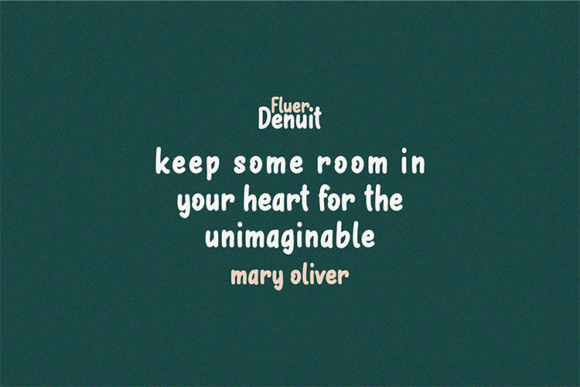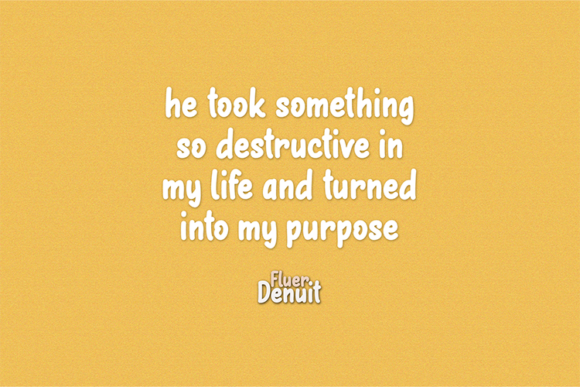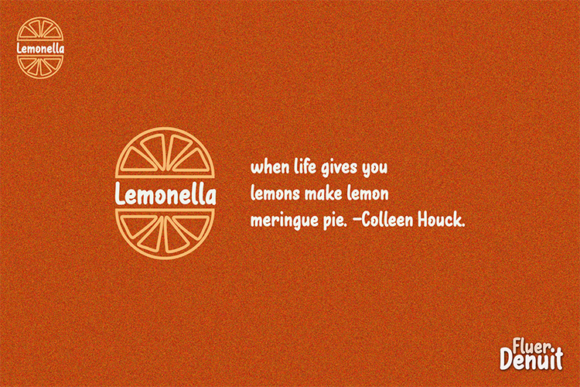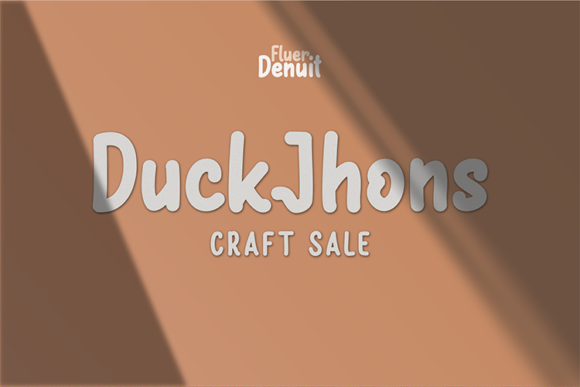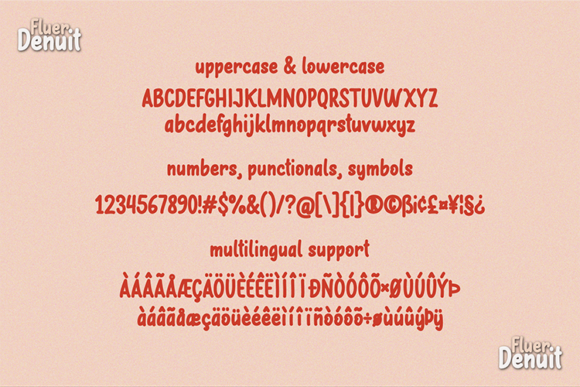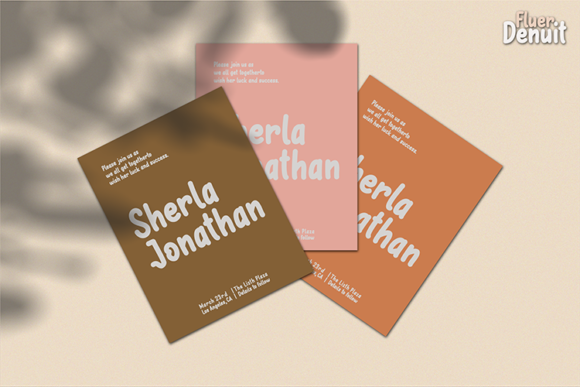
Fleur Denuit Font: Elevate Your Designs with a Cool and Neat Sans Serif Font
In the world of typography, a font can make or break a design. It’s the perfect blend of form and function, conveying a message while also evoking an emotional response. For designers and crafters looking to elevate their creations, Fleur Denuit Font is an excellent choice. This cool and neat sans serif font is simple yet packs a strong visual punch, making it an ideal addition to any project.
The Characteristics of Fleur Denuit Font
Fleur Denuit Font boasts a clean and minimalist aesthetic, characterized by its sans serif design. This style is perfect for those who appreciate a modern and sleek look. The font’s simplicity ensures that it remains versatile, suitable for a wide range of applications, from digital media to print materials. Despite its straightforward design, Fleur Denuit Font manages to stand out, offering a unique flair that sets it apart from more generic fonts.
Why Choose Fleur Denuit Font?
There are several reasons why Fleur Denuit Font should be your go-to choice for your next design project:
- Strong Visual Effect: The font’s design may be simple, but its impact is undeniable. It adds a level of sophistication and elegance to any text, making your creation instantly more appealing.
- Versatility: Whether you’re working on a website, a logo, a brochure, or any other material, Fleur Denuit Font fits right in. Its neutral background makes it an excellent choice for designers who want their content to shine.
- Readability: One of the key advantages of sans serif fonts like Fleur Denuit is their readability, especially on digital screens. This makes it an excellent choice for web design and mobile applications.
- Uniqueness: In a sea of commonly used fonts, Fleur Denuit offers a breath of fresh air. Its unique design elements ensure that your work stands out from the crowd.
Using Fleur Denuit Font in Your Designs
Incorporating Fleur Denuit Font into your projects is straightforward. Its compatibility with various design software makes it easy to integrate into your workflow. Here are a few tips on how to make the most of this font:
- Pair it with Other Fonts: While Fleur Denuit Font is stunning on its own, it can also be paired with other fonts for added effect. Experiment with serif fonts for contrast or other sans serifs for a cohesive look.
- Play with Sizes: Don’t be afraid to vary the font sizes to create visual hierarchy. This can help guide the viewer’s eye through your design.
- Experiment with Colors: The font’s clean design makes it versatile enough to work well with a variety of color schemes. Try it with bold colors for a vibrant look or subtle tones for a more muted effect.
Fleur Denuit Font is more than just a typeface; it’s a design statement. Its cool and neat sans serif design, coupled with its strong visual effect, makes it an invaluable asset for designers and crafters. Whether you’re looking to elevate your digital designs or add a touch of elegance to your print materials, Fleur Denuit Font is an excellent choice. Its versatility, readability, and unique flair ensure that your creations will stand out in any context. So, why settle for ordinary when you can make your designs extraordinary with Fleur Denuit Font?
Embrace the simplicity and elegance of Fleur Denuit Font in your next design project. Its impact is sure to be felt, setting your work apart in a crowded design landscape.